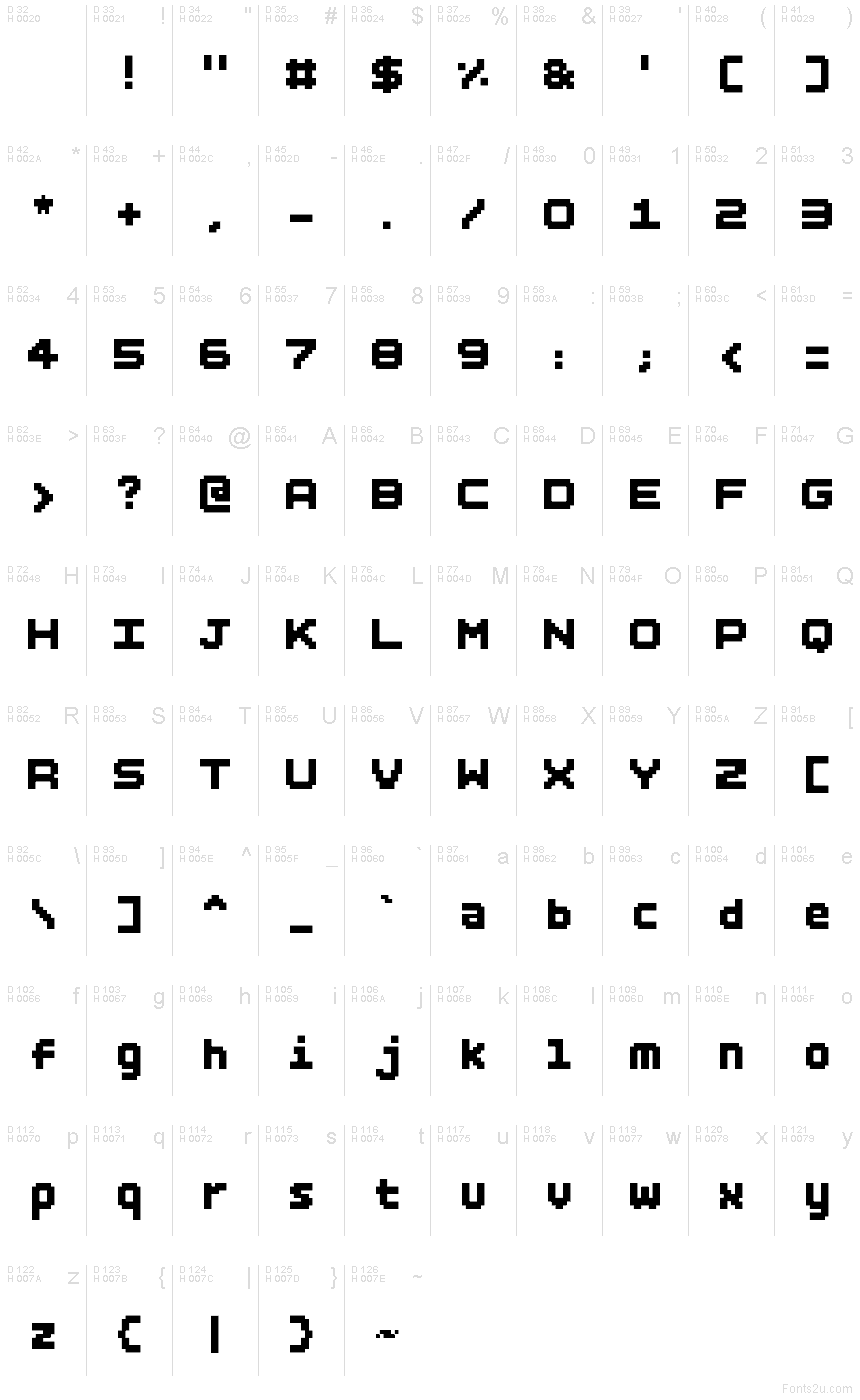
BoldPixels
BoldPixels font by Yukipixels is a free pixelated bitmap display font. Built on a tight grid, its chunky blocks and crisp right angles create a punchy, arcade-ready rhythm that stays sharp at small sizes. The spacing feels compact but even, with stout strokes and square counters that read instantly on screens and signage.
Using BoldPixels, titles and HUD labels in retro games, YouTube thumbnails, event posters, stickers, stream overlays, and icon-heavy menus all land with confident clarity. This free font thrives where low-res charm meets high-impact messaging. Pair it with a light geometric sans for body copy, and stick to integer pixel sizes for razor-clean rendering.